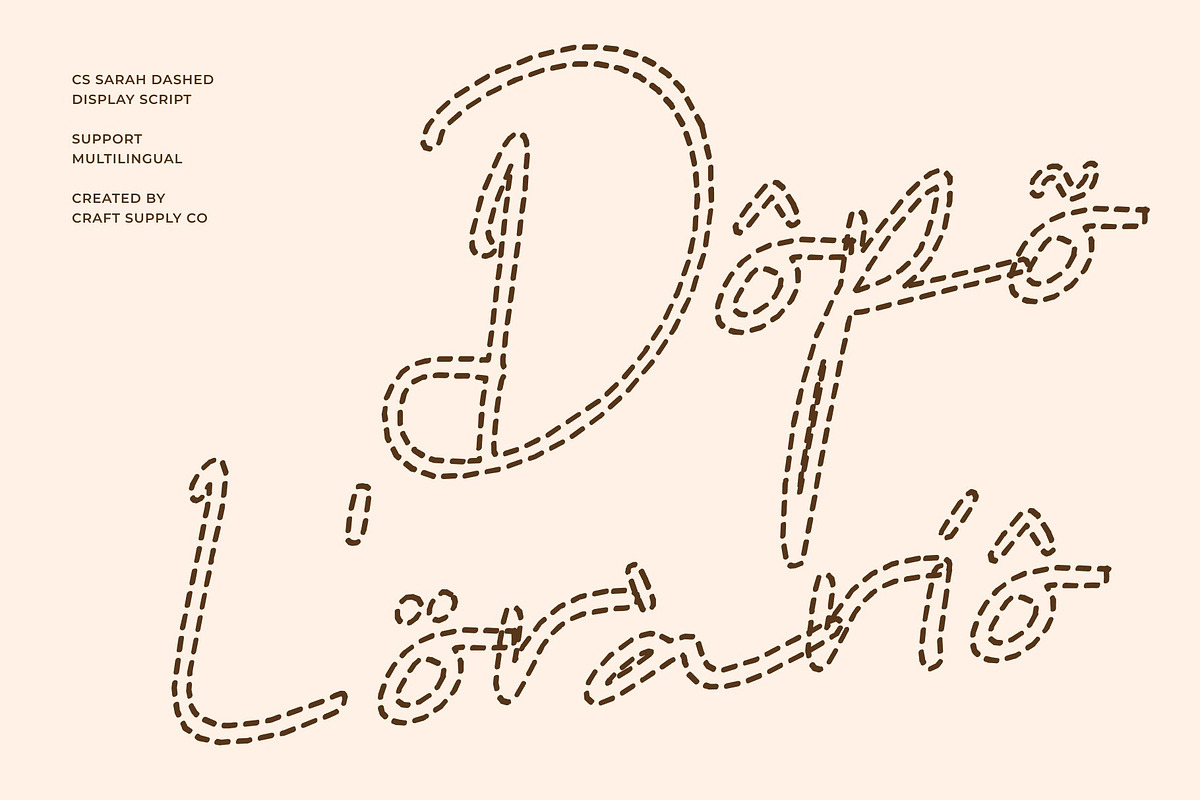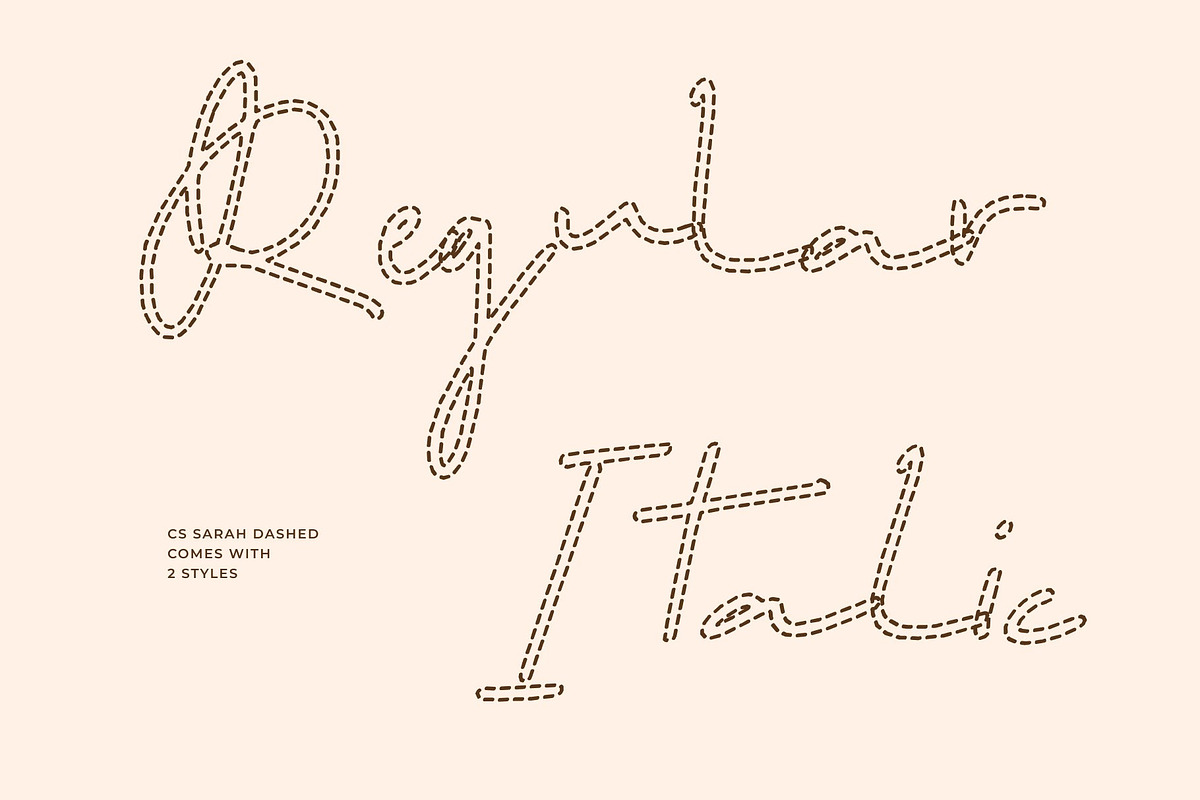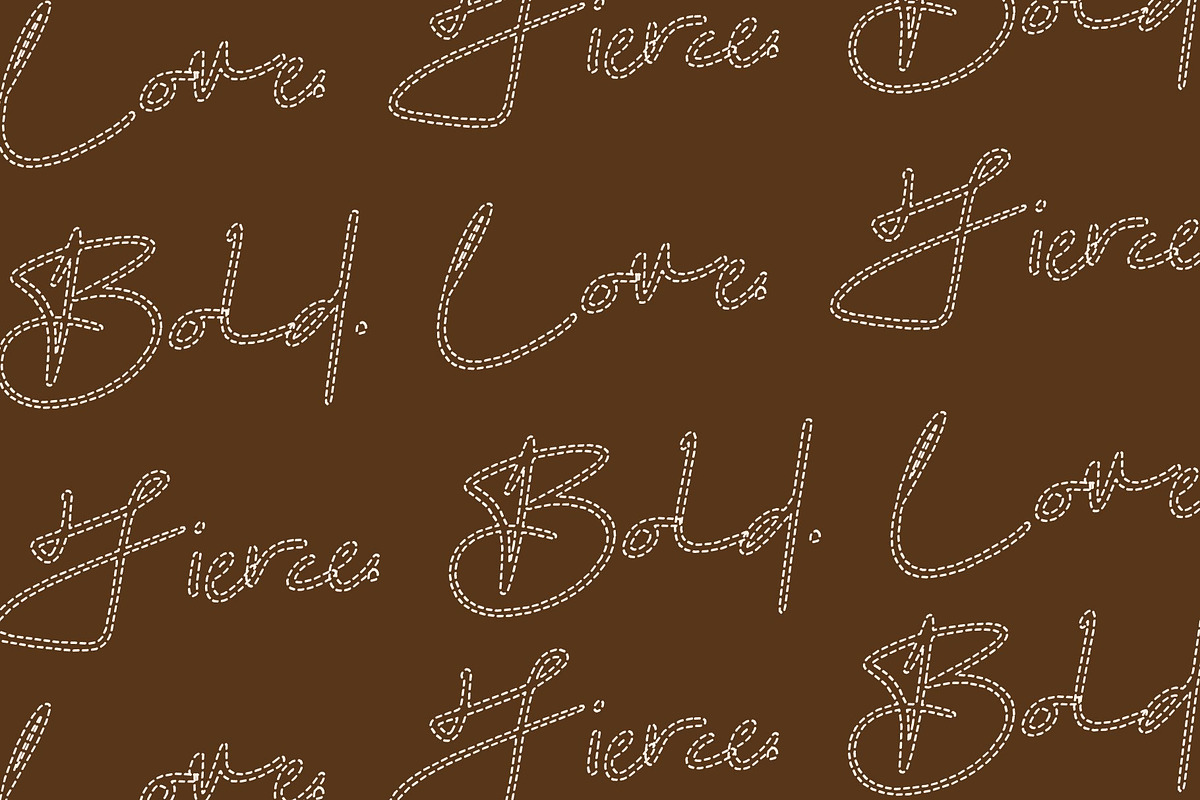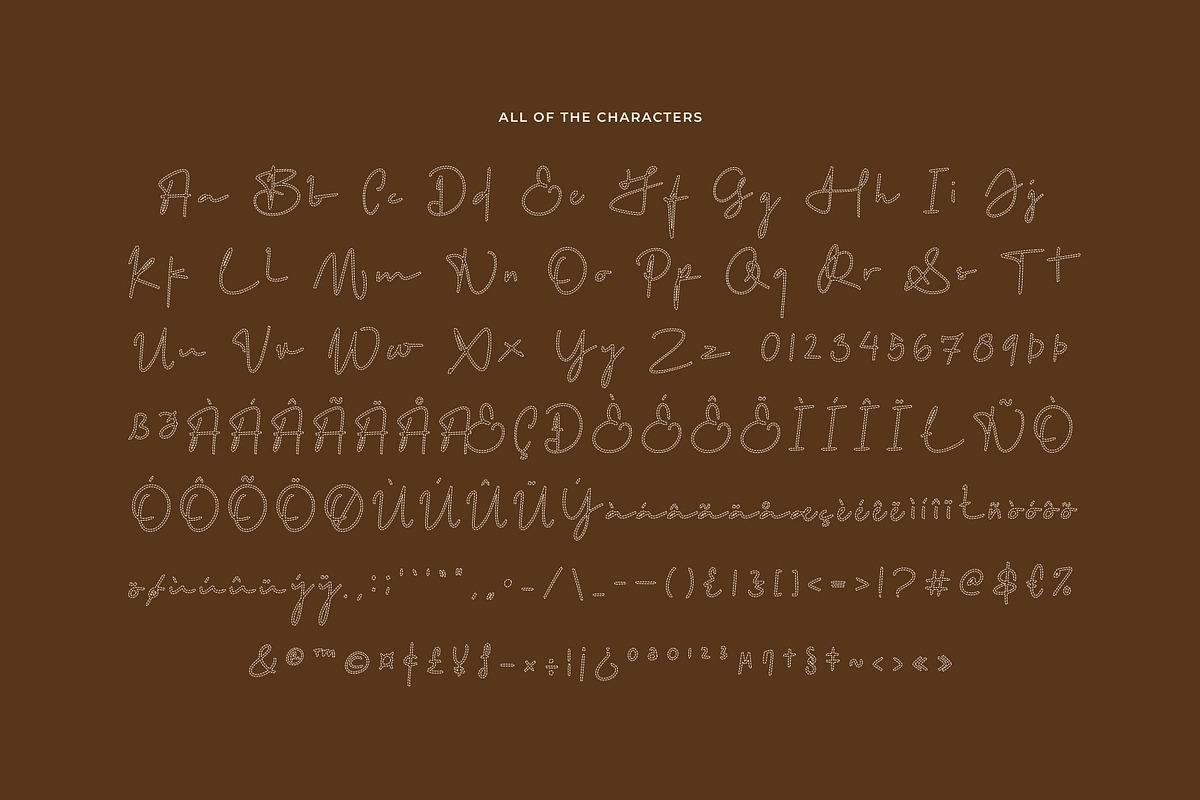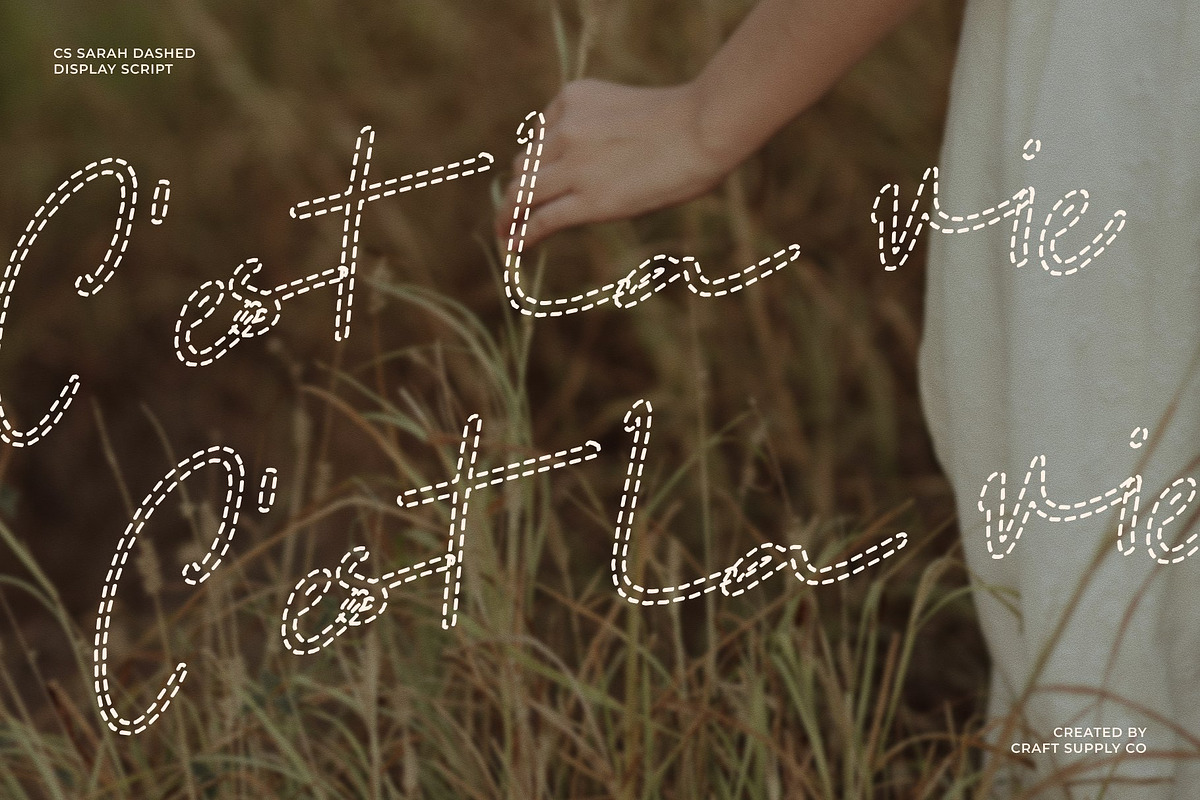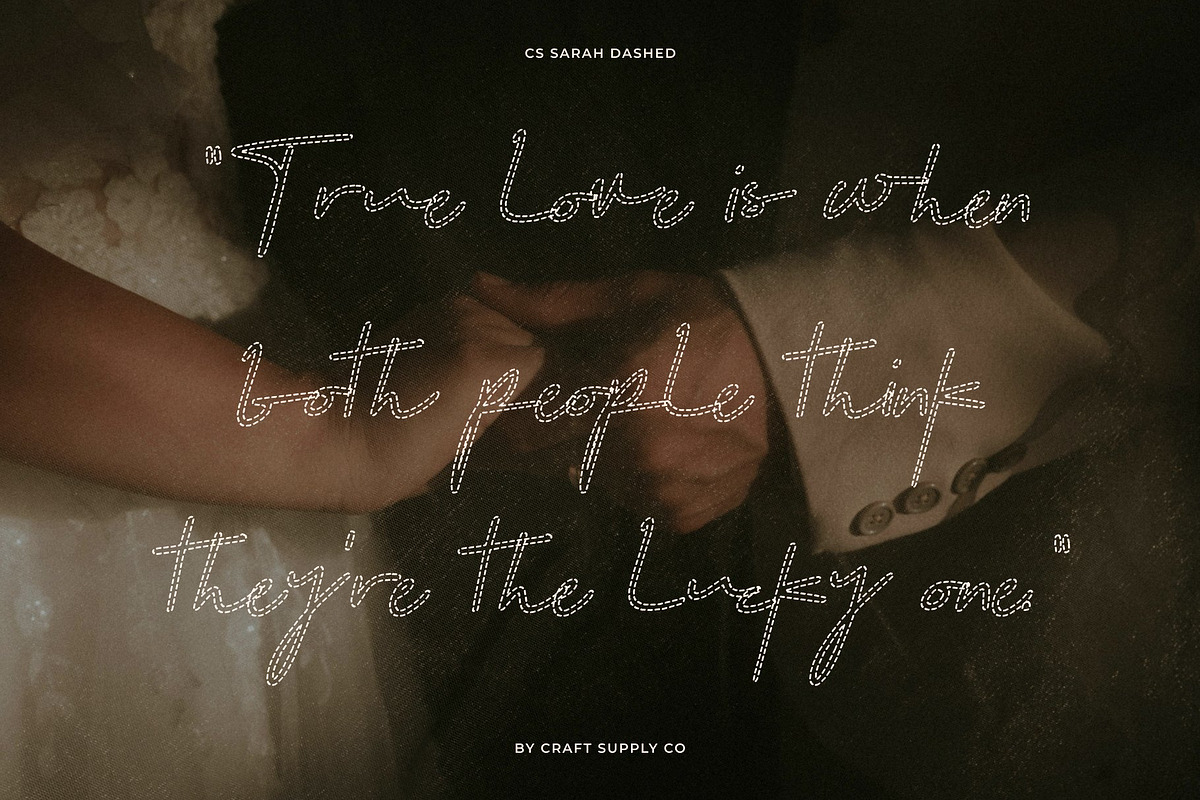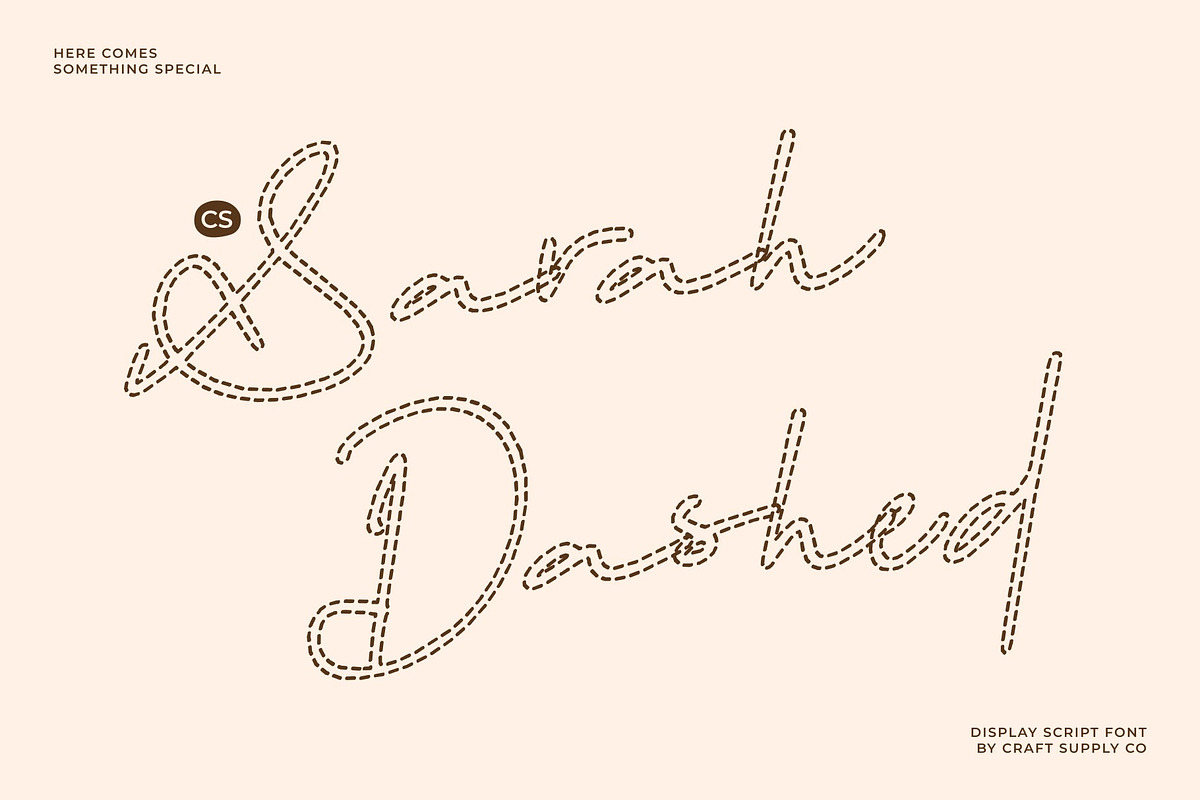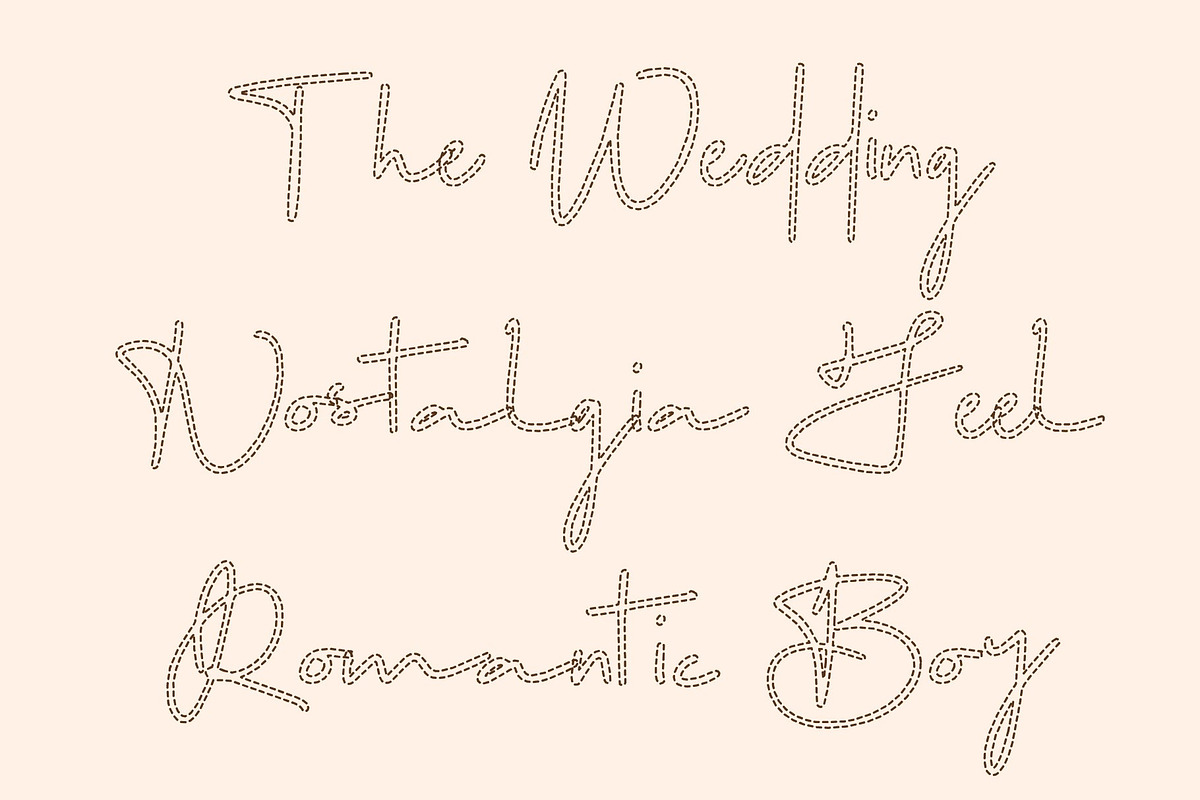
CS Sarah Dashed
CS Sarah Dashed – Graceful Handwritten Elegance with Refined Clarity
Handwritten Script Font with Polished Character This is a handwritten script font crafted to express grace, refinement, and effortless elegance. Its smooth, flowing strokes are enhanced with a dashed texture that gives the lettering a light, creative character while preserving a polished and sophisticated appearance. Inspired by refined handwriting, this font brings timeless beauty and clarity to modern design.
Elegant Flow with High Readability Carefully balanced curves, consistent rhythm, and thoughtful spacing allow each word to feel graceful yet highly legible. The dashed styling adds a subtle decorative touch without reducing clarity, making the font suitable for both display headlines and refined text applications.
Refined Expression for Premium Visuals This font communicates luxury and professionalism through its clean handwritten structure. Its elegant personality adds warmth and charm while maintaining a controlled, polished finish perfect for projects that need both personality and sophistication.
Ideal for Logos, Editorials, and Luxury Packaging This font is designed for premium applications such as logos, editorial layouts, luxury packaging, branding, and refined promotional materials. Especially suited for fashion, beauty, and lifestyle brands, it delivers a timeless, elegant typographic presence that elevates any design with graceful clarity and creative charm.
CS Sarah Dashed Regular
CS Sarah Dashed Italic